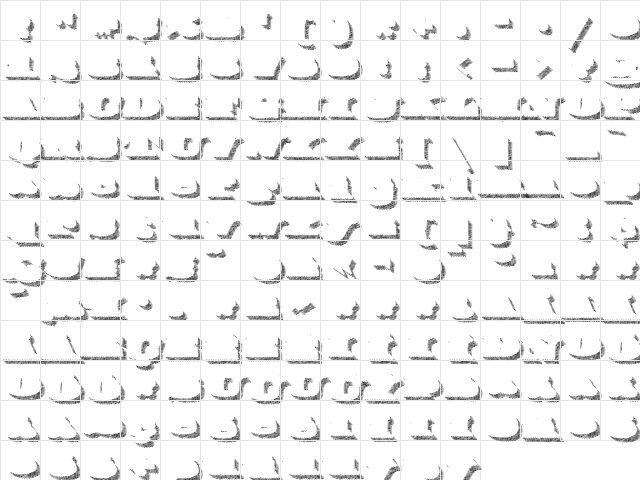
FederalEighteen DShadow
Design Context for FederalEighteen Typeface
FederalEighteen is built around its visual character rather than neutral utility — its distinctive forms are designed to make an impression at display sizes.
Font Pairing: Pair with a clean neutral sans-serif for body copy to let FederalEighteen's character lead without overwhelming the composition.
Pro Tip: Use FederalEighteen exclusively at display sizes — it was designed to be seen, not read at length. Let a neutral companion handle body copy.